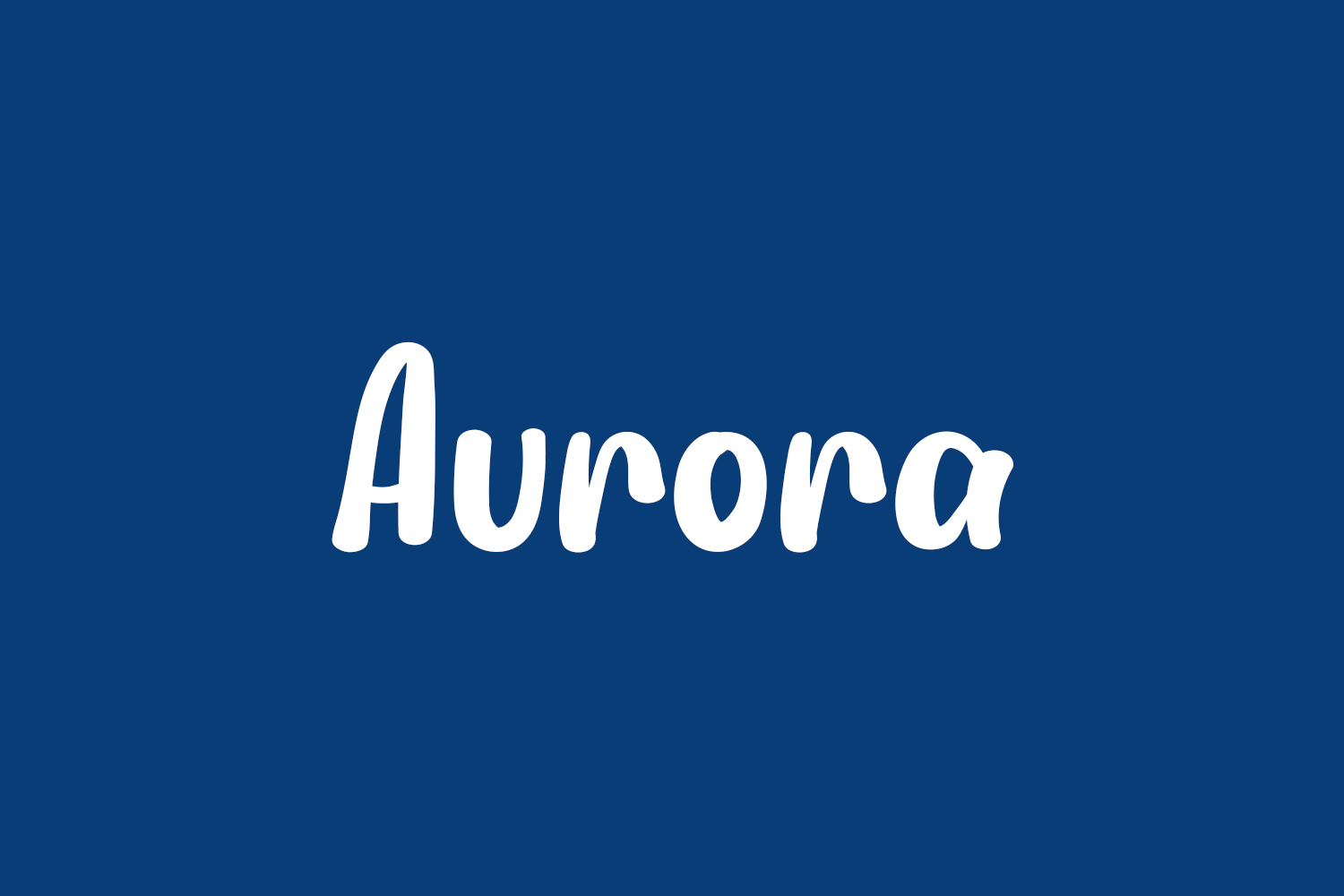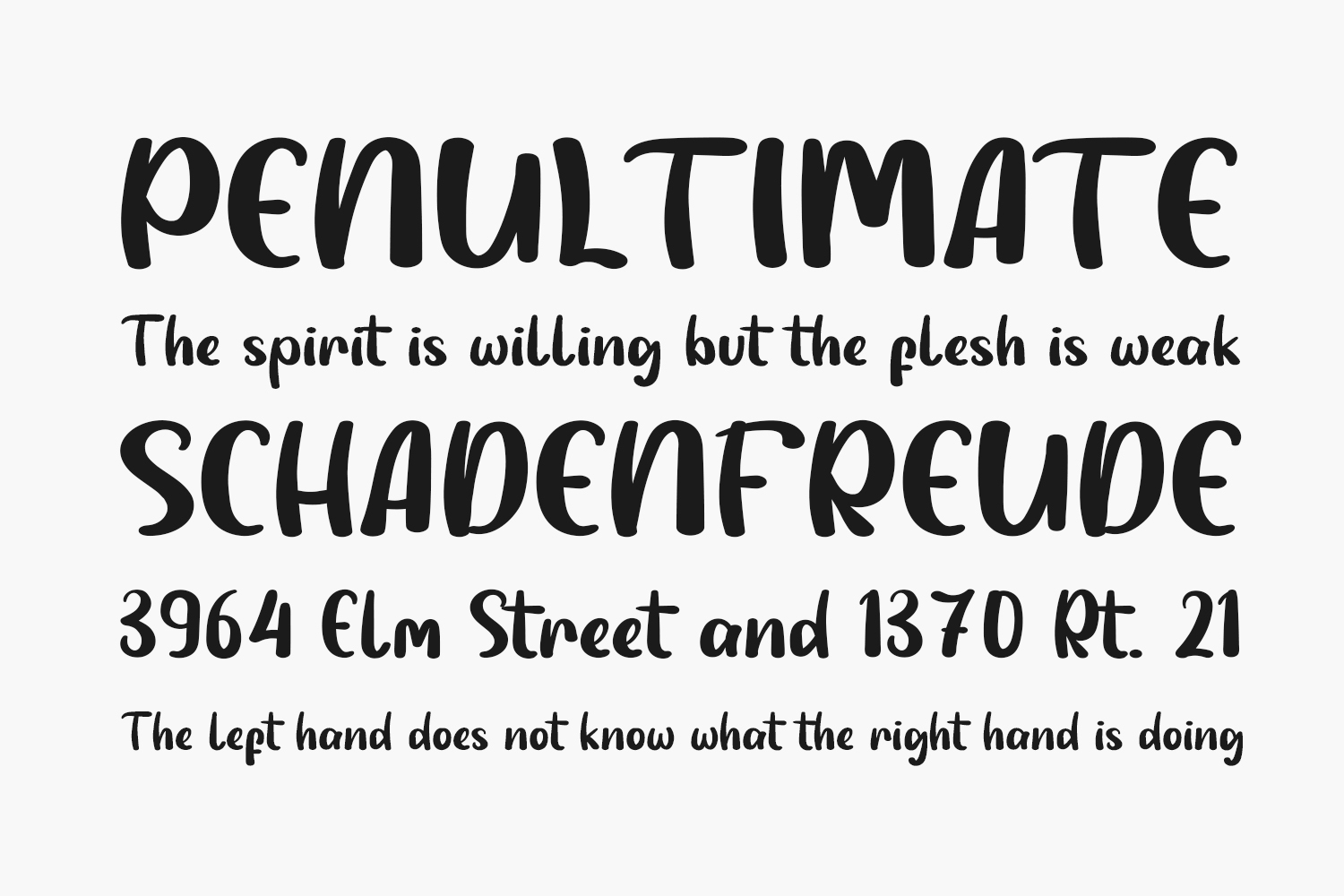
Aurora Free Font is a lovely and delicate script handwritten font that exudes elegance and class. This font was particularly crafted for those who need a beautiful and refreshing look to their designs.
Designed by Inermedia Studio